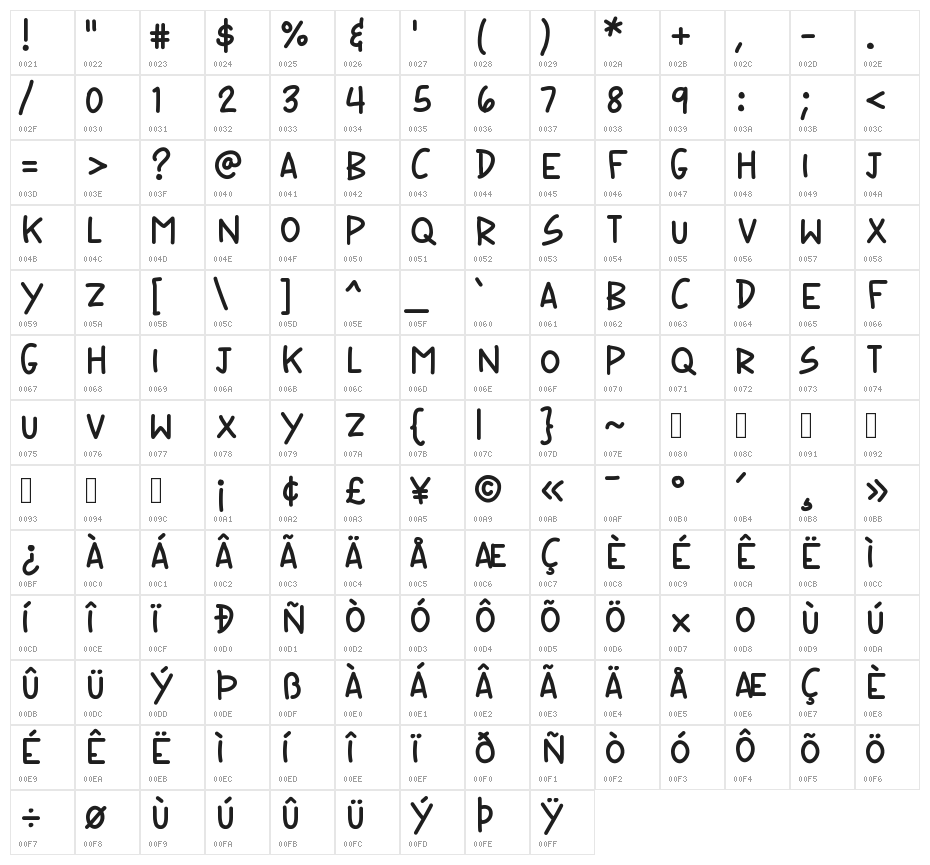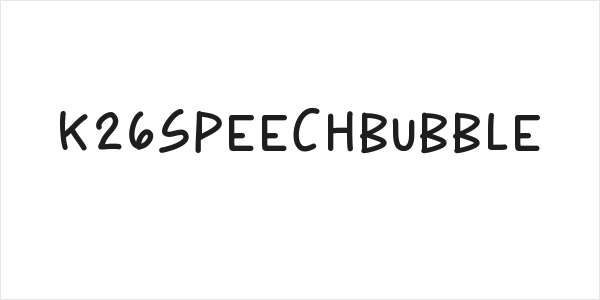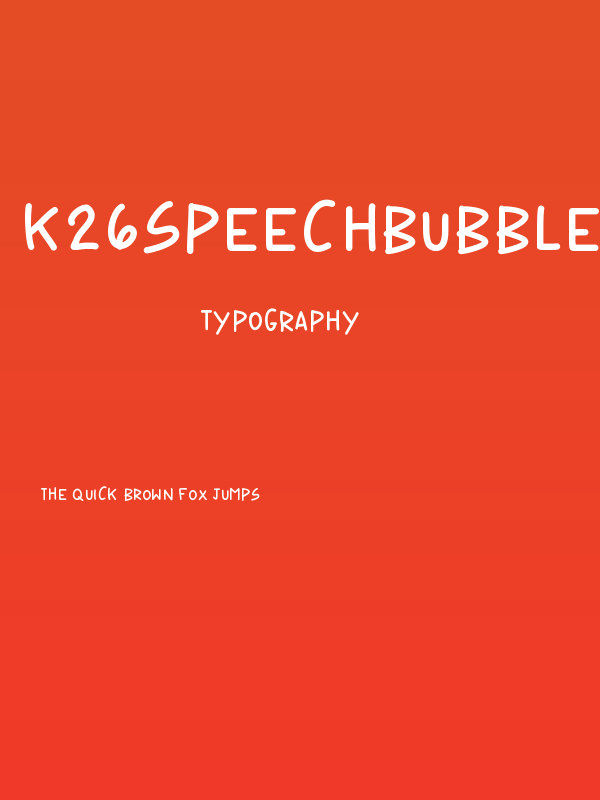
K26SpeechBubble Font
K26SpeechBubble Description
This playful and casual font features a handwritten style with rounded edges and a friendly appearance. The characters are bold and slightly irregular, giving them a whimsical and approachable feel. The uppercase and lowercase letters maintain a consistent style, with a slight tilt that adds to the informal look. Numbers and special characters are designed to match the overall aesthetic, making this font versatile for various creative projects. The strokes are uniform in thickness, providing a balanced and cohesive look across all characters.
| Proposed Projects | Ideal for comic books, children's books, greeting cards, and playful branding. |